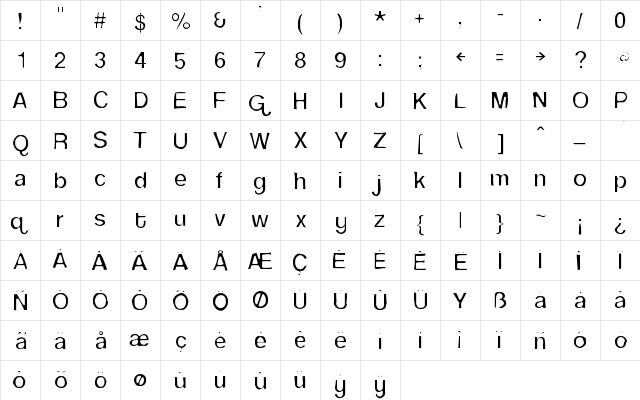
Coolvetica Gaunt Regular
Design Context for Coolvetica Gaunt Typeface
Coolvetica Gaunt takes a measured approach to typography — its balanced proportions and neutral character make it a reliable workhorse for both digital and print work.